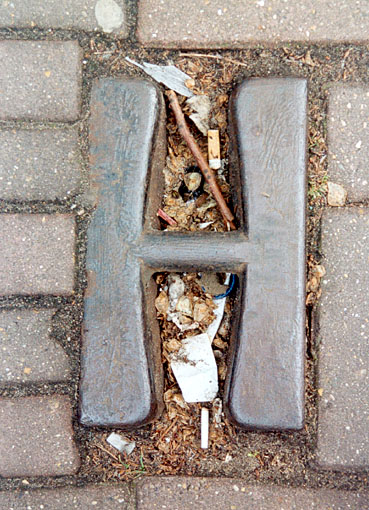
I'm doing an article on functional typography, but not ordinary type. Forget legibility etc. What I want to dicuss is type that has another function besides the presentation of letters and words. Think: Manhole covers, the type gives the name of the manufacturer and perhaps the city, but it must also create grip for the soles of shoes. Braille (probably spelt wrong) must be legible to the hand not the eye.
What about type on medicines and hospital equipment. I remember a news paper article about a case where a doctor administered the wrong medicine because the packaging and typography was almost identical to something else.I think the patient actually died.
Also type on packaging boxes that reads
THIS WAY UP or FRAGILE.
Off topic but are there different styles of braille obviously keeping the same dot pattern
but instead of dots, raised squares/stars to give certain words more importance like warnings on hazardous liquids like bleach?
Military Dogtags, Lit Exit Signs, Debossed Tire Tread Inflation Specs, Vintage Bricks Embossed with Company's Name, Illuminated Elevator Buttons, Country Design Napkins, Themed Adhesive Bandages, Pyrex Liquid Measuring Cup, Coffee Maker Water Indication Fill Lines, M&Ms, Andes Mints, Alphabet Soup, DYMO Lables, Old School Typewriter Balls, Fruit Roll Ups w/ Die Cut Letters, Tic Tac Toe - any application, Scrabble . . .
I think alphabet soup is my favorite - not only are the letters decorative, they also serve to enhance the 'body' of the soup as a pasta.
Food: Along with alphabet soup, there's Alpha-Bits cereal, candy letters, letter-shaped cookies/biscuits, and even letter-shaped pancakes.
There are letter-shaped notepads, keychains, bookends, candleholders, and the like, which function as monograms or identification in addition to their more obvious uses.
How about beads with letters on them that are made into personalized necklaces and other jewelry?
Also, customized vanity license plates serve the dual functions of vehicle identification and personal expression.
LAX (airport) and Disneyland both have letterforms as 'public art'. At Disneyland California (a newer theme park right next to Disneyland) people snap pictures of their subjects sitting in the counters of the letters. The letters are roughly 15 feet high and spell out California.
Never been to the Trajan column, though.
I also thought of the gardens at Disneyland, where the flowers are arranged in the form of the Disneyland logotype. There's also the "HOLLYWOOD" sign (formerly "HOLLYWOODLAND") which could qualify as public art, or at the very least, a major landmark.
Here in Utah, high schools, colleges and universities have enormous whitewashed concrete letters embedded in the sides of mountains (Brigham Young University's "Y" or the University of Utah's "U"). An extention of this was the huge light sculpture of the Olympic rings which adorned the mountain near the "U" at the Salt Lake City Olympics.
I also came up with children's building blocks -- the cubes with letters and numbers marking the faces of the cube. They can be considered educational as well as recreational.
when i considered functional type to meaning, i equated it with its form. lets say i were to copy the aesthetic of a postal systems stamp {that stamp the postal office puts on a the stamp that you put on an envelope} and change the words of that system stamp to something that really didn't relate to its form. if i was a person that takes visuals for granted, perhaps I'd look at that circular mark and understand through its form that its gone through the mail system. if that's the case than its functional to me.
w/ all that said though, i think that if a letter that a sign maker has produced works for support for a bird as a home for its nesting materials then whom i'm a to disagree w/ its function? i hadn't considered that materlal aspect as much as i will now which is very cool in that if the original question hadn't been asked i would be no further ahead.
I keep thinking of bicycle (mountain bike/bmx) hand grips - there's a company with a typographic logo who repeats it over and over in the rubber, the result being a highly grippable surface.
Does this count?
Actually there is a history of beautiful lettering and design elements (e.g. knotwork) to come out of Ireland. Some of the most famous illuminated manuscripts ever are Irish. The look is a bit over-exposed in the U.S., but it definitely gives you a starting point. Good luck!
A while back I thought it would be interesting to collect images of that sort with my digital camera for future reference. Some of the categories that came to mind included public space, office area, private home and everything else out there. Public space could include everything from a parking street meter to that generic closed store sign that shows when it's open. Office could have the hold button on a telephone all the way to the postal systems stamp over a letter. Misc. could include that "Hello my name is" sticker to the type on the outside of a light bulb. As a side note, I'd be interested in reading the article when your finished...
m